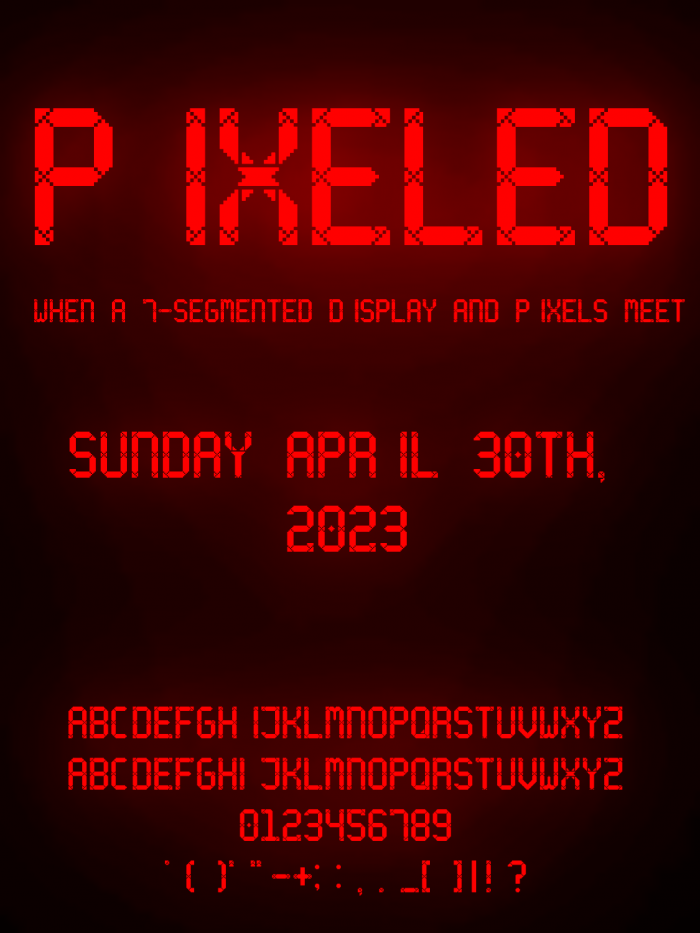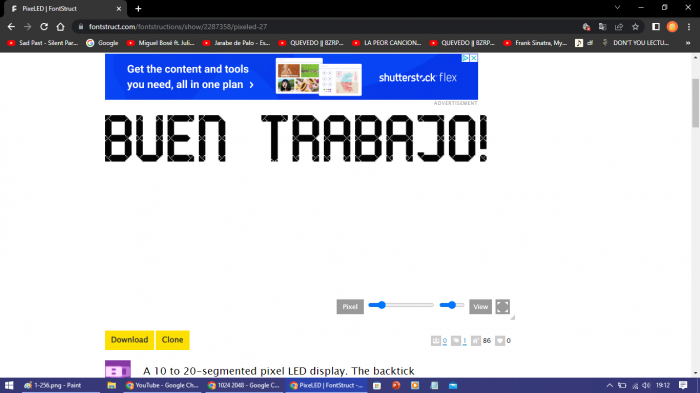
• A 10 to 20-segmented pixel LED display. The backtick symbol is for when every part is lit up. Due to being made out of pixels, the LED display can easily split (see the letter C's far left)